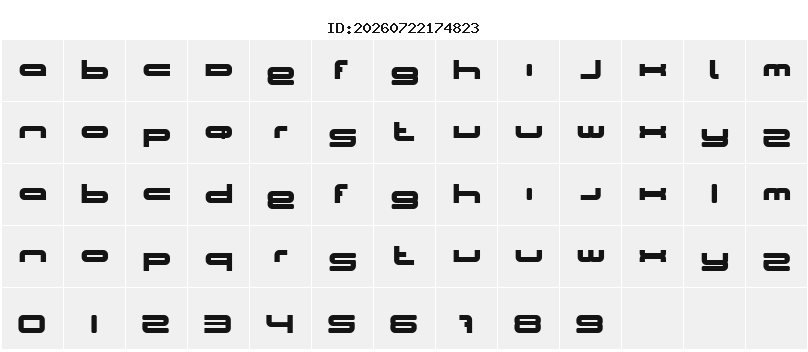
• Font Name: JI-Jailed
• Designer: JupiterImages
JI-Jailed.ttf is a modern, elegant sans-serif font designed for ultimate readability and visual harmony. Perfect for branding, headlines, web design, and print materials.